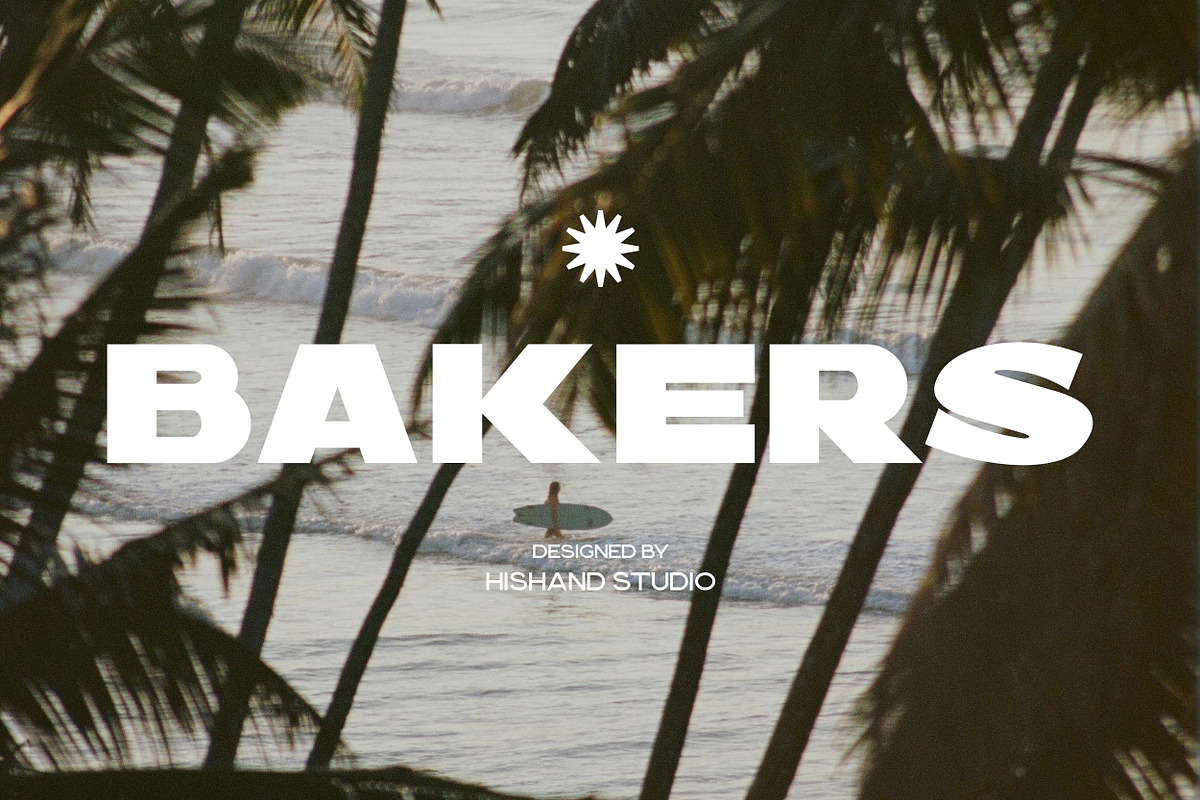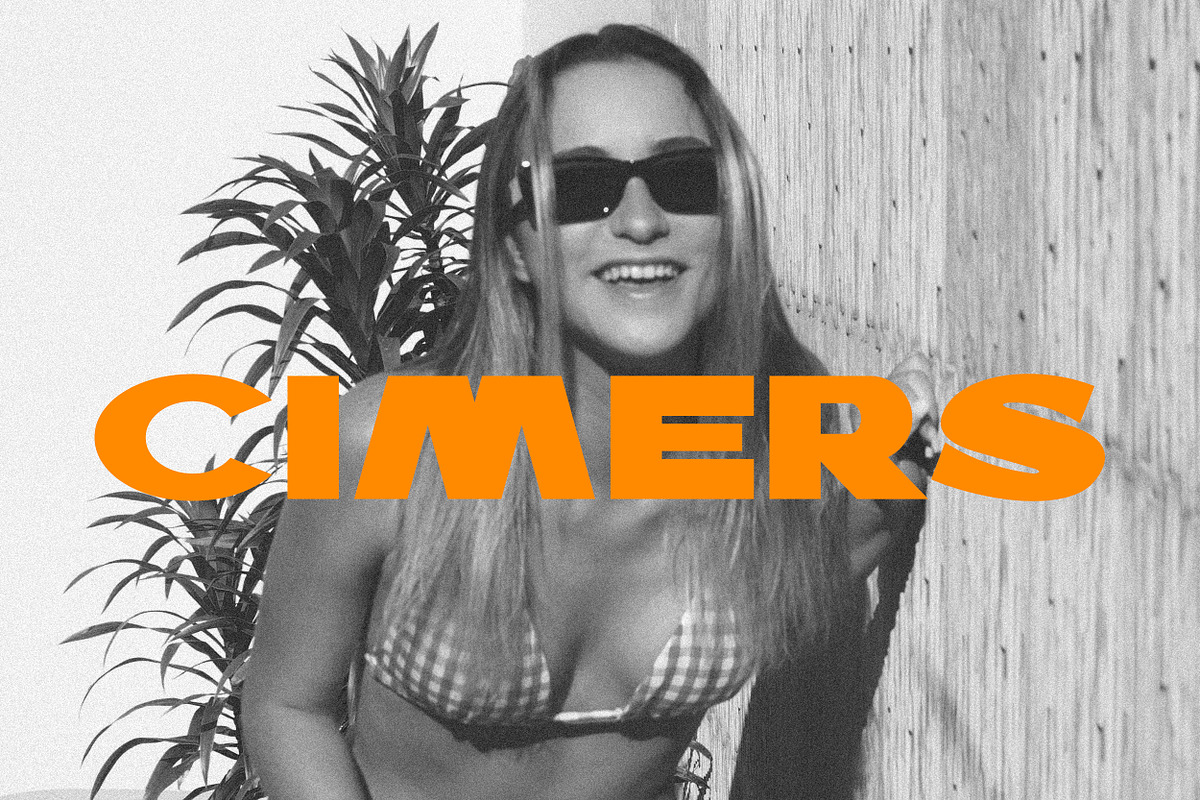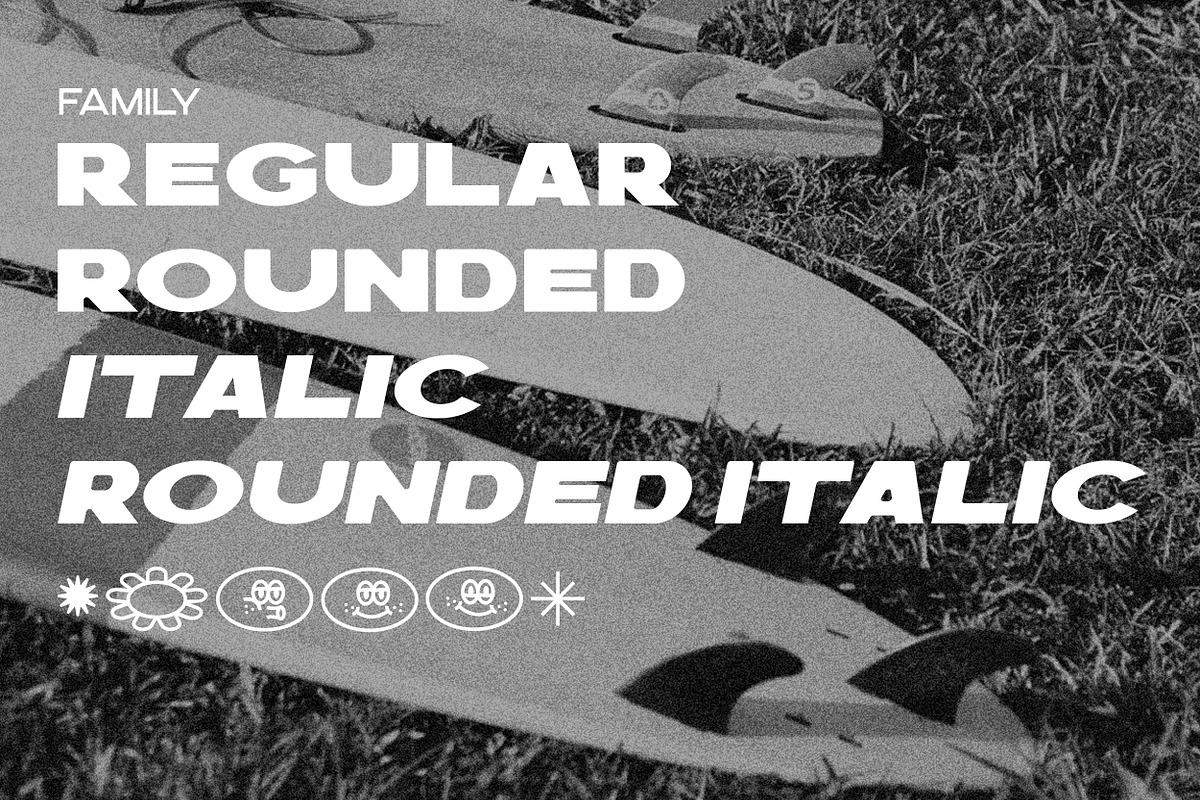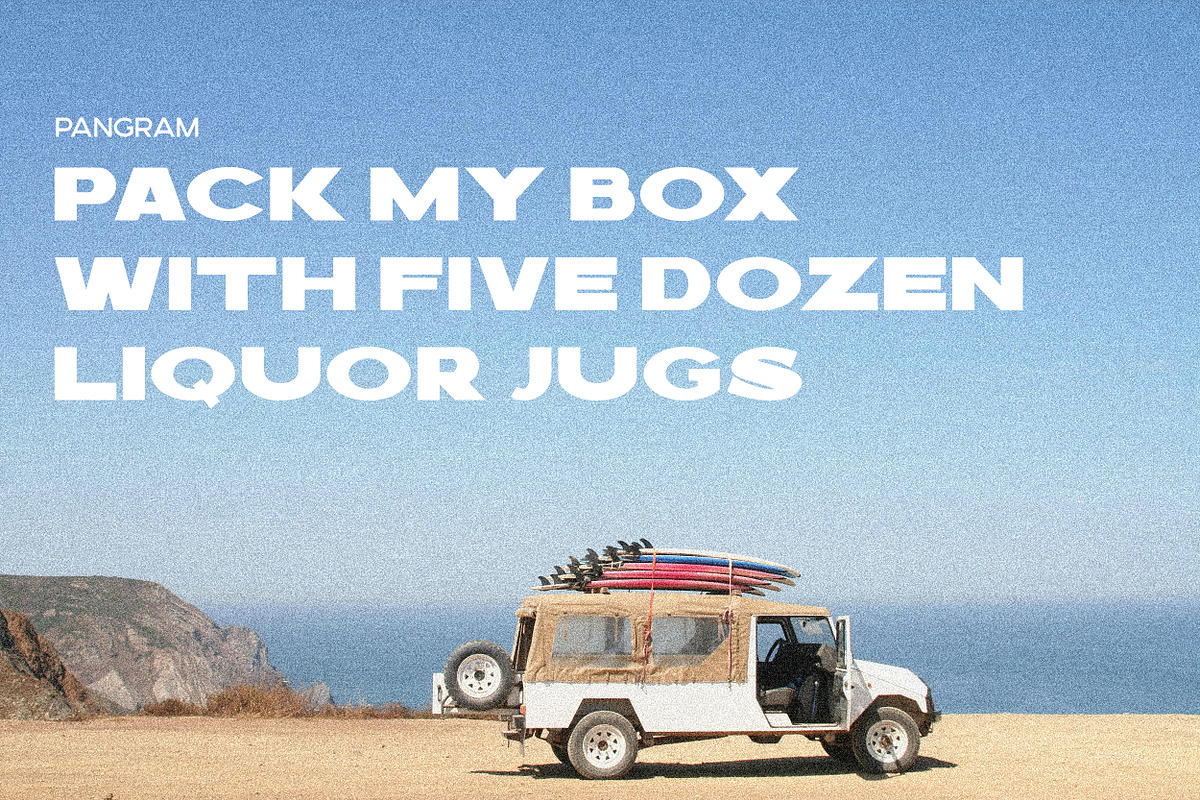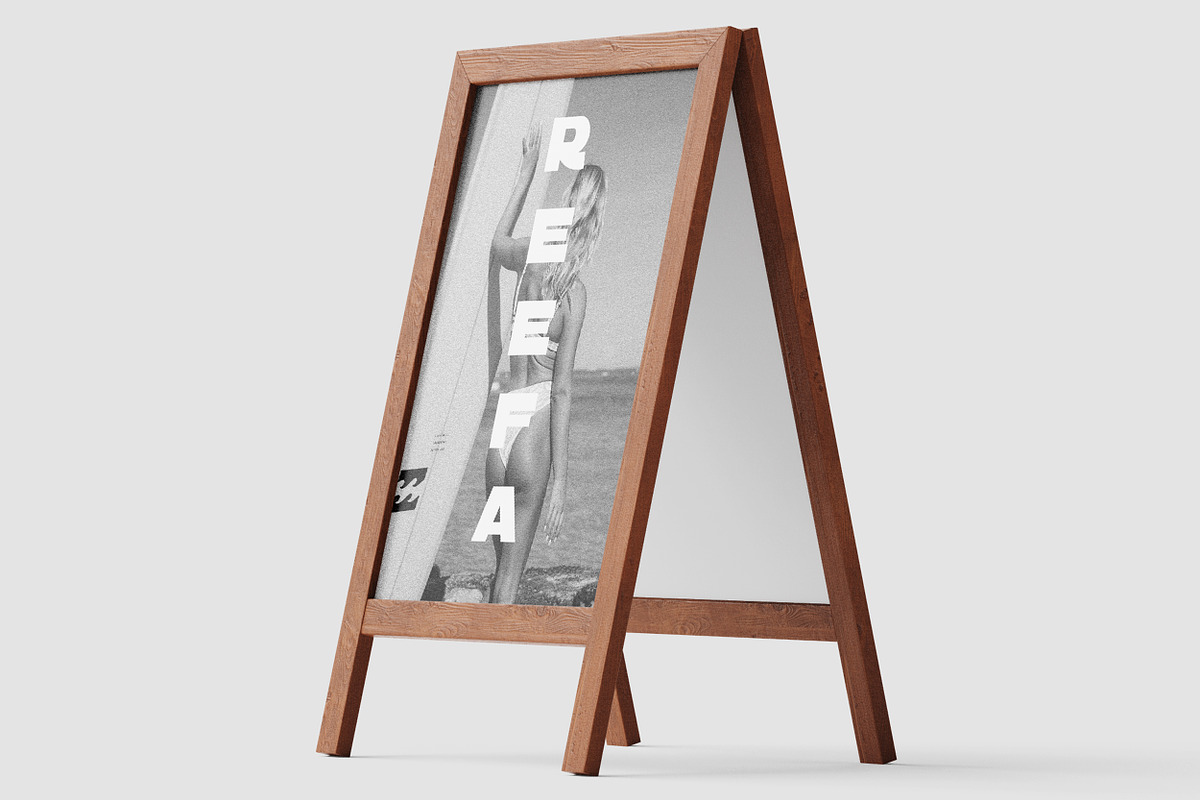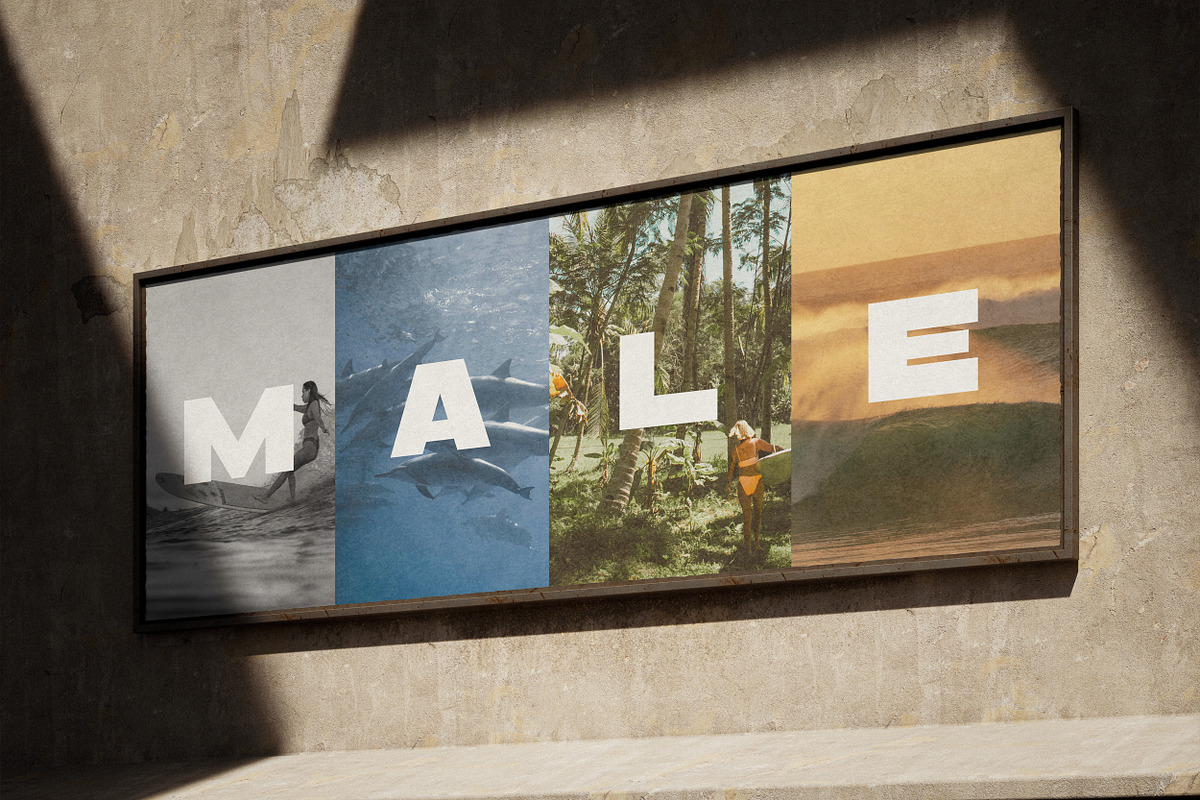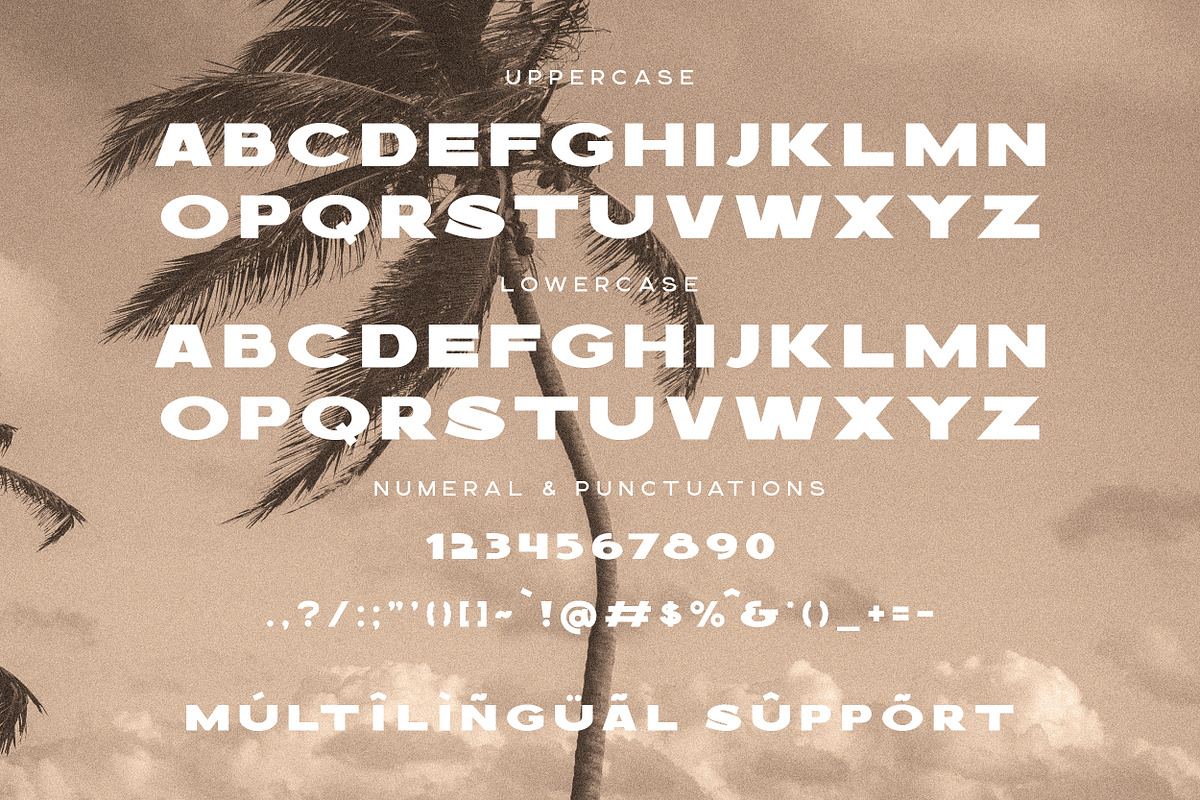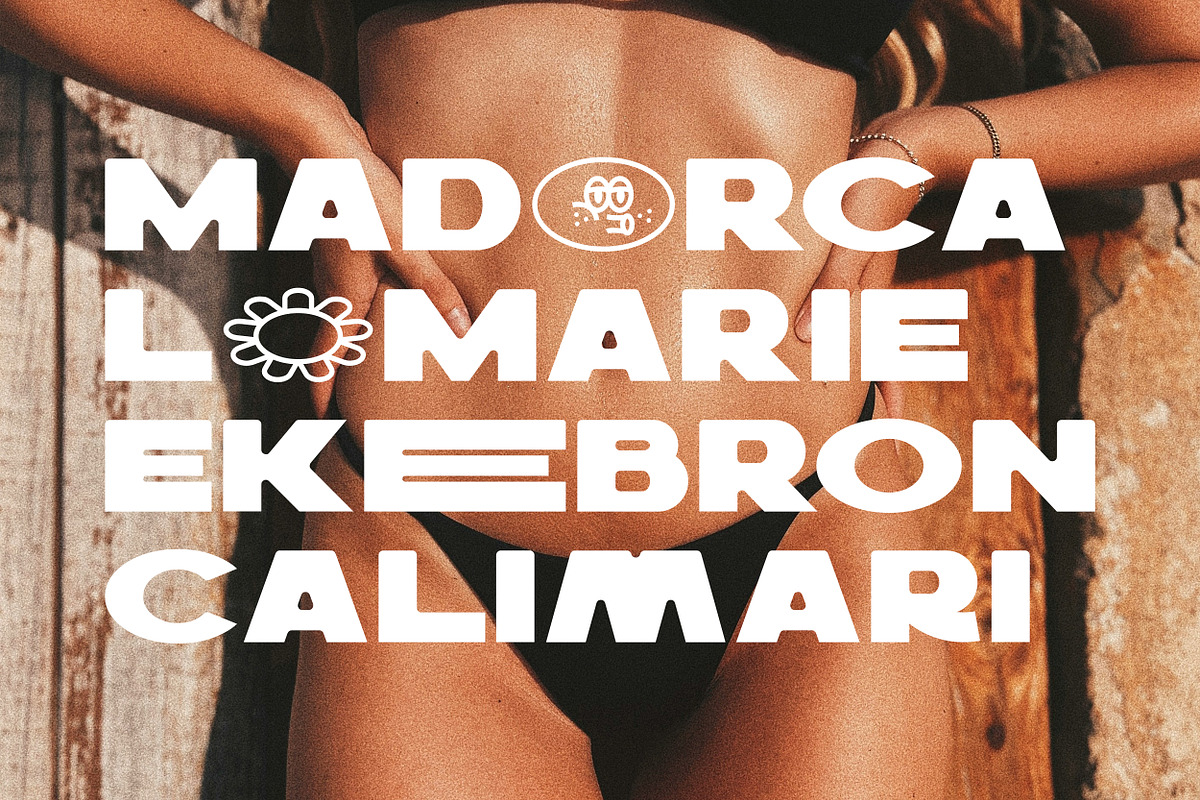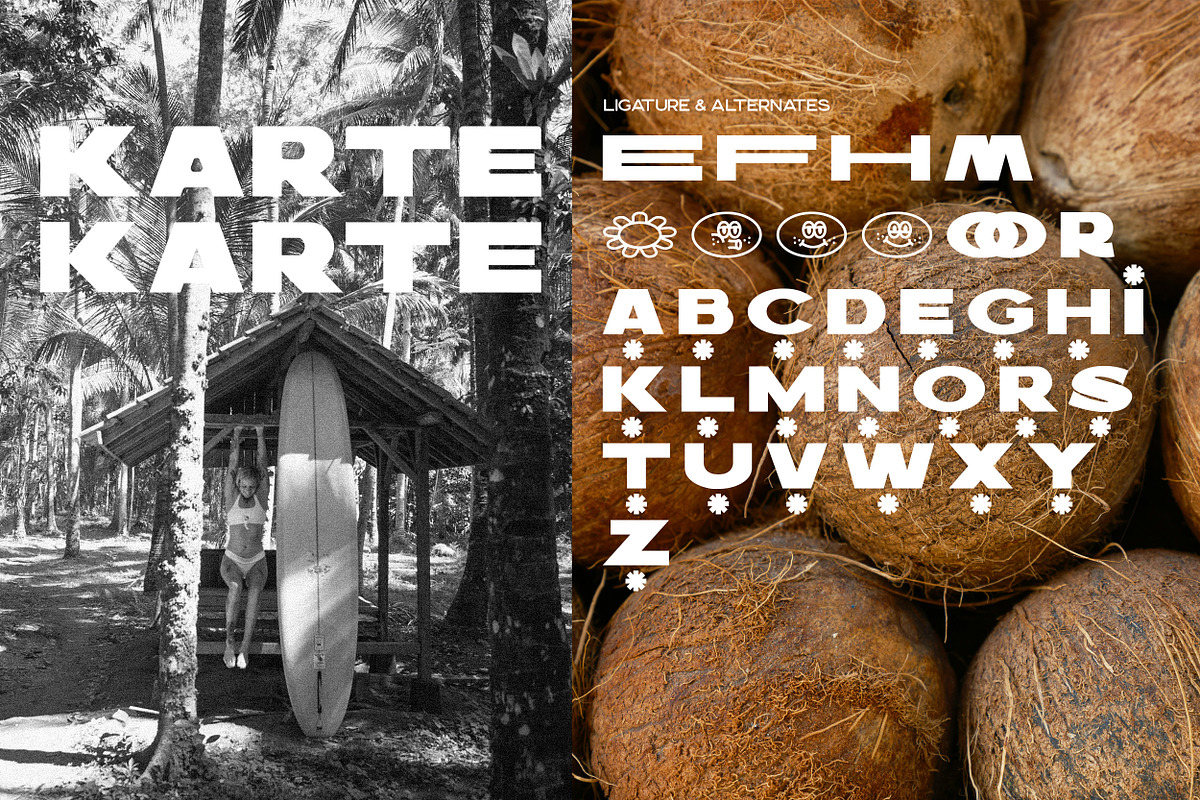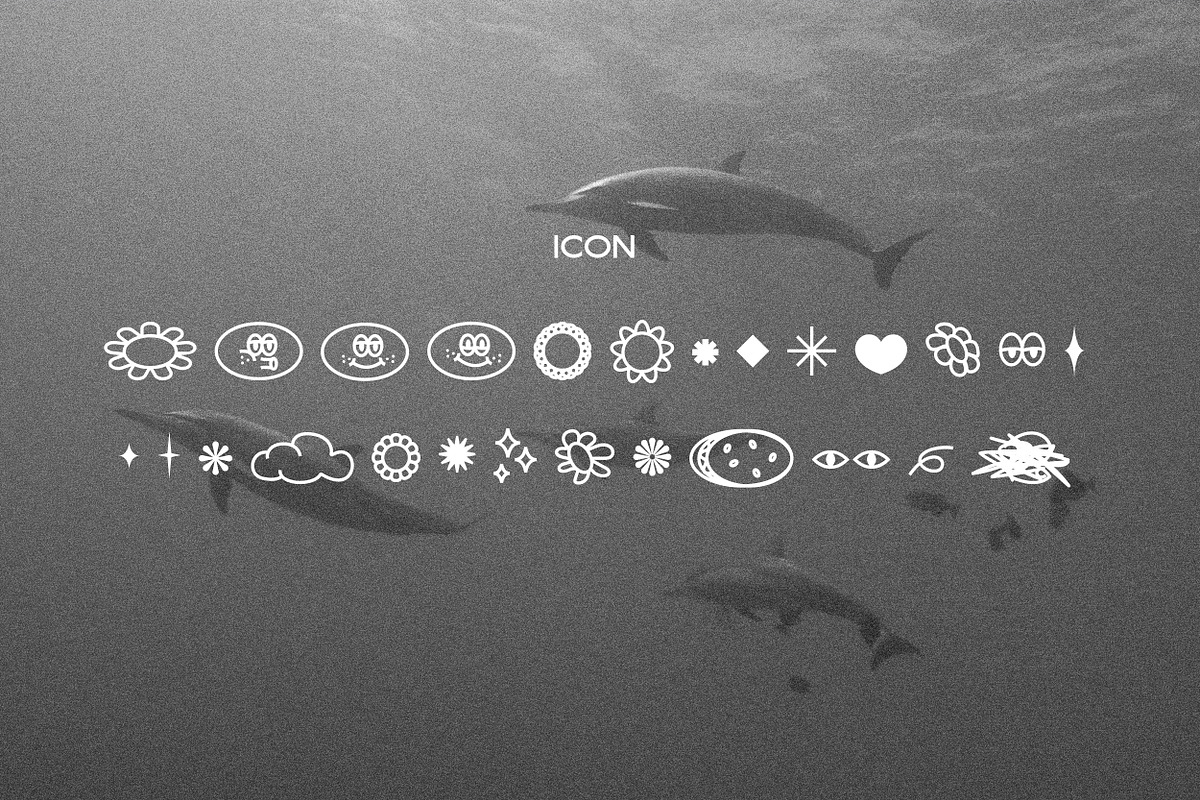
Bakers Bold Display Sans Serif
Bakers is a bold display sans serif font designed with clean structure and strong visual impact. Its wide letterforms, sharp angles, and confident proportions give it a modern yet timeless character. The font feels solid and grounded, making it easy to read even at large sizes while still delivering a striking presence.
Bakers draws inspiration from classic signage and contemporary branding, blending simplicity with a subtle edge. The geometry is well balanced, allowing the letters to sit comfortably in layouts without feeling heavy or aggressive. Each character is crafted to look cohesive, creating smooth word shapes that work especially well in headlines and logos.
This font is ideal for branding, editorial titles, posters, packaging, apparel, and lifestyle visuals. It pairs naturally with photography and minimal design systems, letting the message stand out clearly. Bakers is a reliable choice for designers looking for a strong, modern typeface that feels natural, confident, and visually memorable. Complete with
- alternates
- regular
- rounded
- italic
- rounded italic
- icon
- kerning
- multilingual support